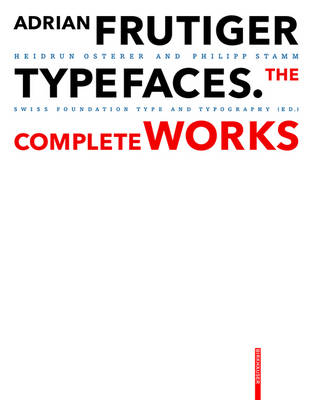
The international creation of typefaces after 1950 was decisively influenced by the Swiss type designer Adrian Frutiger. His Univers typeface and the machine-readable font OCR-B, which was adopted as an ISO standard, are milestones, as is his type for the Paris airports, which set new standards for signage types and evolved into the Frutiger typeface. With his corporate types, he helped to define the public profiles of companies such as the Japanese Shiseido line of cosmetics. In all he created some fifty types, including Ondine, Méridien, Avenir, and Vectora. Based on conversations with Frutiger himself and on extensive research in France, England, Germany, and Switzerland, this publication provides a highly detailed and accurate account of the type designers artistic development. All of his types from the design phase to the marketing stage are illustrated and analyzed with reference to the technology and related types. Hitherto unpublished types that were never realized and more than one hundred logos complete the picture. This second, revised and expanded study edition, which now has an index, makes Frutigers achievement even more accessible.
Introduction, School days and education, Fonts: Président, Phoebus,
Element-Grotesk, Delta, Federduktus, Ondine, Méridien.- Lumitype-Schriften,
Univers, Egyptienne F, Opéra, Apollo, OCR-B, Serifa, Concorde, New
Devanagari, Iridium, Frutiger.- Glypha, Icone, Breughel, Versailles, LT
Centennial, Avenir, Westside, Herculanum, LT Didot, Vectora, Shisheido,
Pompeijana.- Rusticana, Neon, Frutiger Stones/Symbols, Capitalis/Symbolica,
Nami/Tectum etc. Technical Inversions: Handsatz Blei.- Fotosatz Photon,
Einzelbuchstabenguss, Zeilenguss Sofratype, Tech. OCR, Schreibsatz IBM,
Letraset, Tech. CRT, Laser.- Fonts, Postscript, etc. Chronology, Bibliography.
Adrian Frutiger, type designer; Heidrun Osterer and Philipp Stamm, teachers for typography.